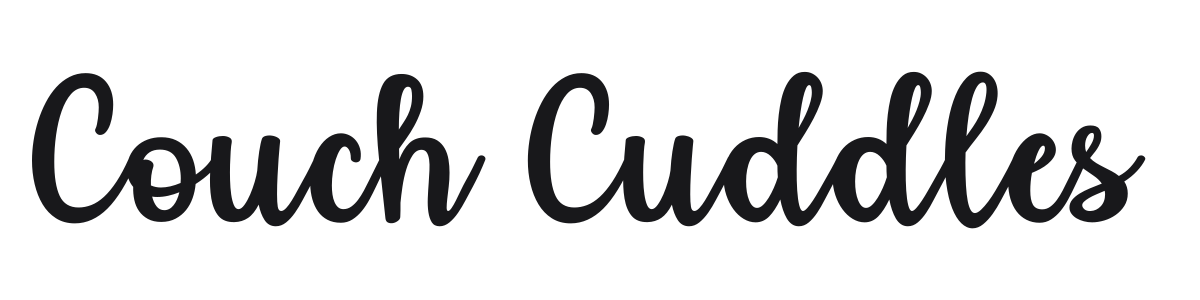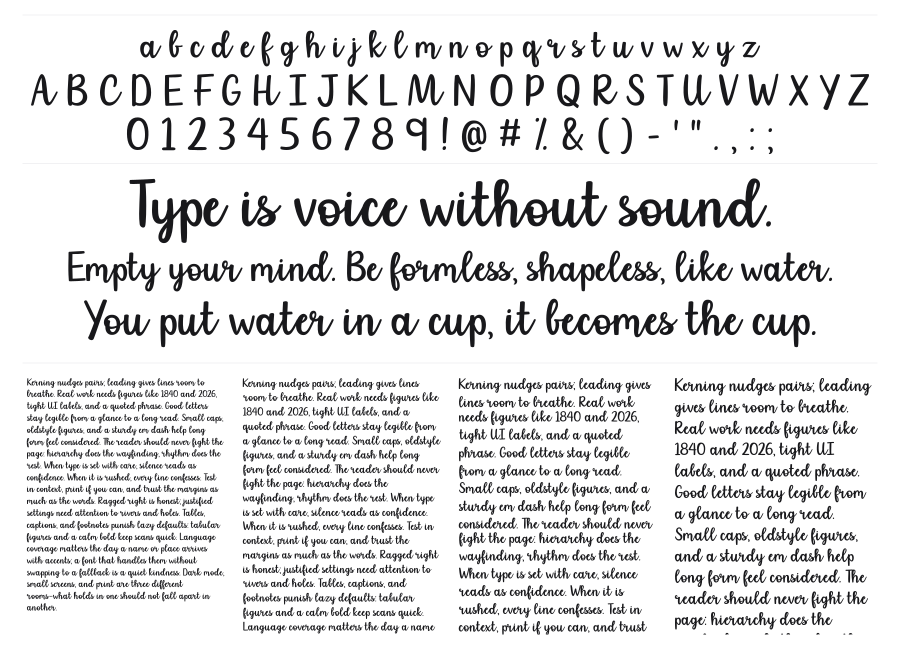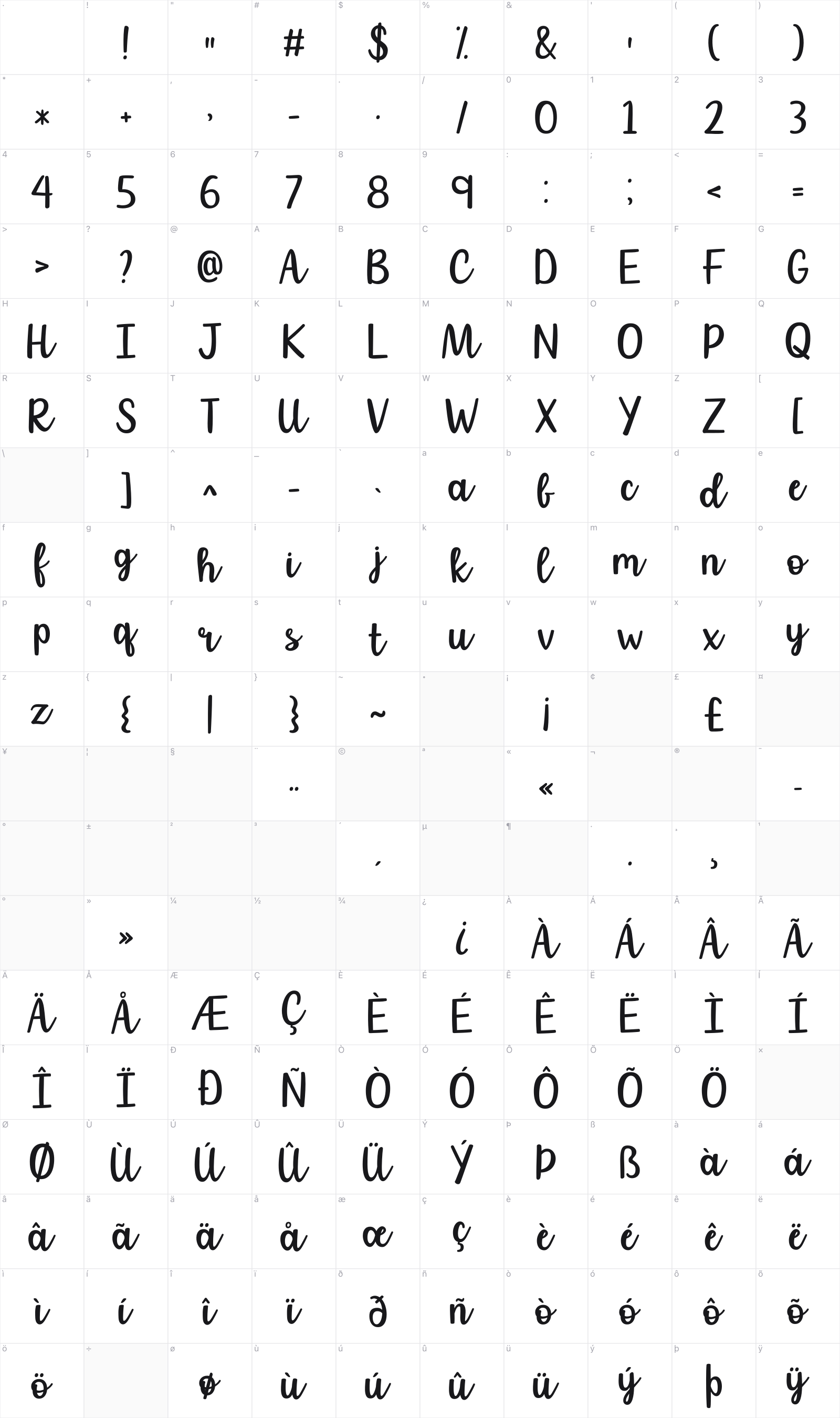
Couch Cuddles
Couch Cuddles is a smooth, connected casual script with flowing curves and a warm handwritten personality. Its rounded strokes and gently bouncy rhythm give it an intimate, affectionate feel that reads naturally at headline sizes. Particularly at home on valentines, greeting cards, and packaging where a personal, cozy touch matters.